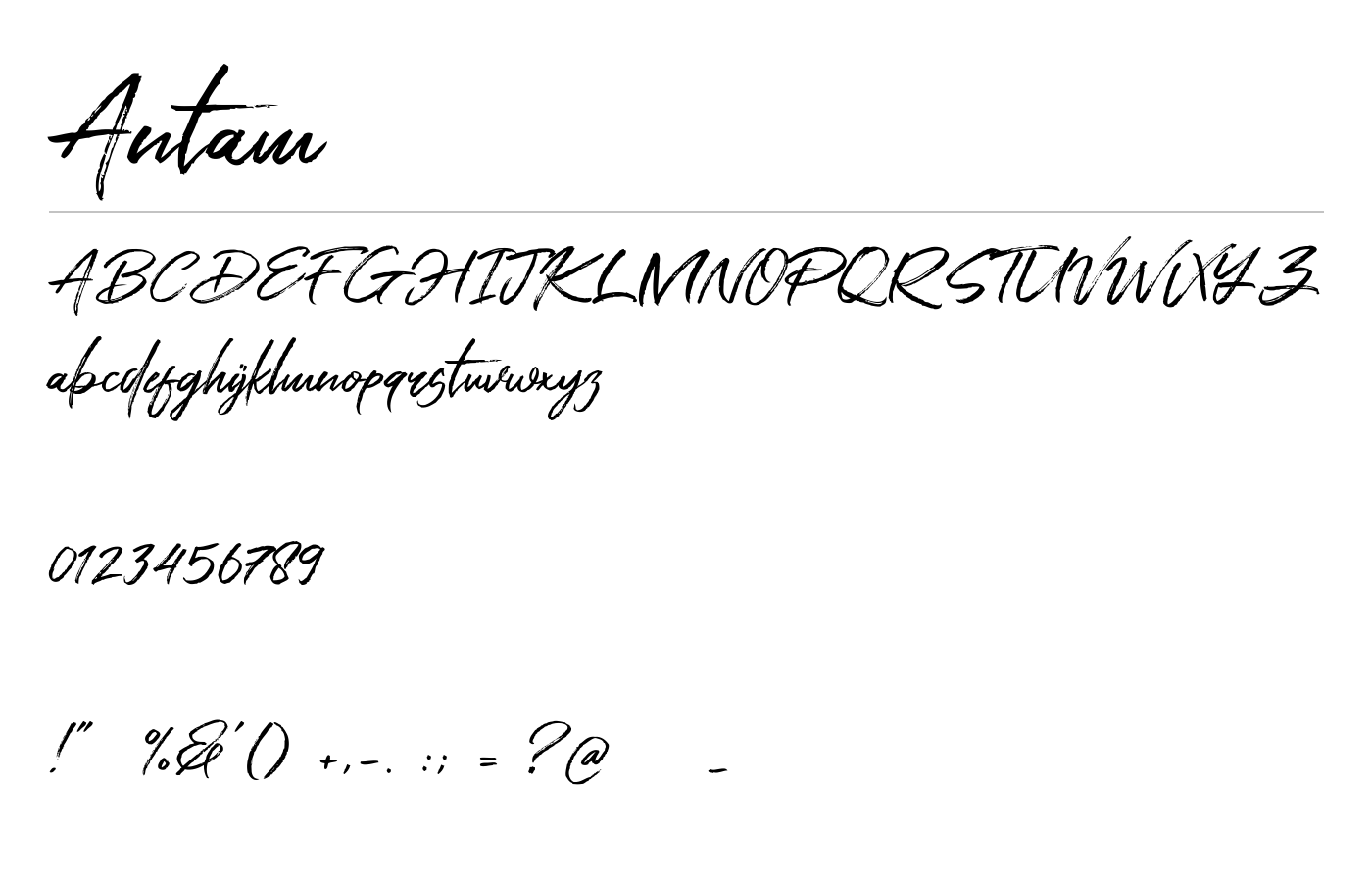
Antam is a dynamic script font with a natural, hand-painted feel characterized by its textured brush strokes and lively, flowing letterforms. Its slightly condensed width, moderate x-height, and casual yet elegant style make it perfect for creative branding, invitations, and expressive headlines where a personal and artistic touch is desired. This font brings an energetic, handcrafted charm suited for modern, stylish, and informal designs.
Antam Font